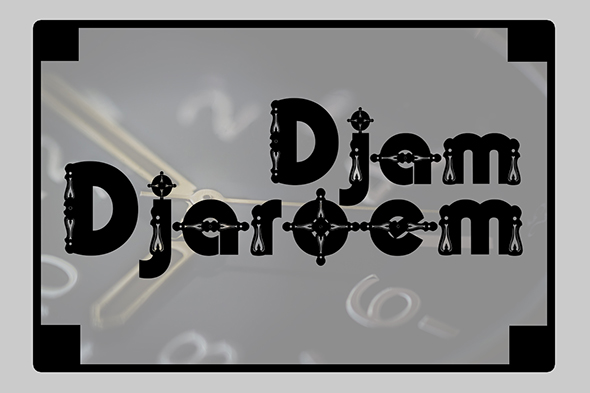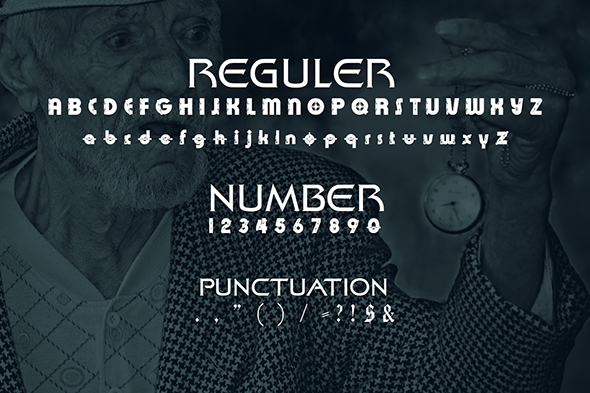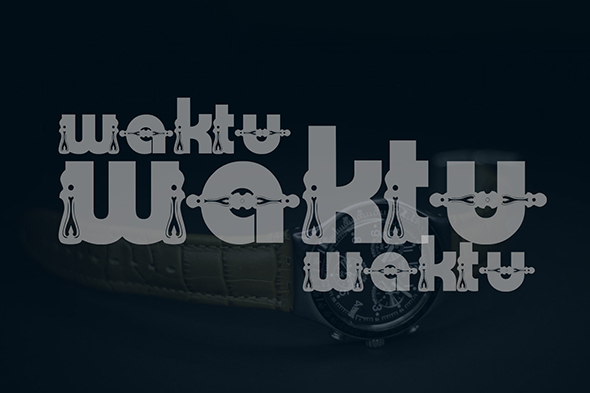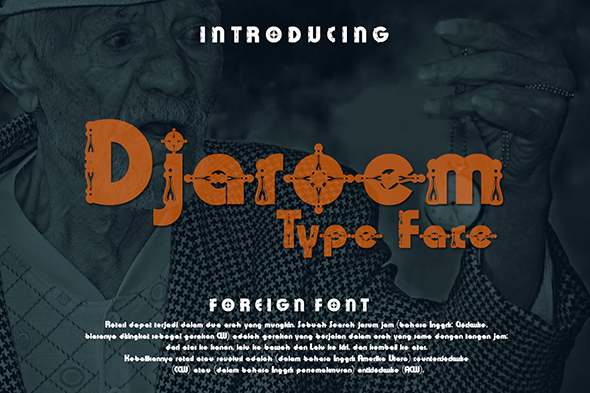
Djaroem Font: Elevate Your Designs with the Unique Style of Gblack Id
In the world of typography, fonts play a crucial role in conveying messages, expressing emotions, and creating visual identities. For designers and crafters, finding the perfect font can be a daunting task, especially when looking for something that stands out from the crowd. This is where Djaroem Font, created by Gblack Id, comes into play. In this article, we’ll dive deep into the world of Djaroem Font, exploring its features, benefits, and uses, as well as provide insights on how to make the most of this unique typeface.
What is Djaroem Font?
Djaroem Font is a distinctive typeface designed by Gblack Id, a creative force known for pushing the boundaries of typographic design. The font is characterized by its unique blend of modernity and traditional elements, making it a versatile choice for various design projects. Whether you’re working on a branding campaign, a website, or a crafting project, Djaroem Font offers a fresh and captivating aesthetic that is sure to grab attention.
Key Features of Djaroem Font
So, what makes Djaroem Font stand out from the numerous typefaces available today? Here are some of its key features:
- Unique Design: Djaroem Font boasts a one-of-a-kind design that combines sleek lines with classic elements, creating a visually appealing look.
- Versatility: This font is incredibly versatile, suitable for a wide range of projects, from digital media to print materials.
- Legibility: Despite its unique design, Djaroem Font maintains high legibility, ensuring that your message is conveyed clearly and effectively.
- Customizability: The font comes with various weights and styles, allowing you to tailor it to your specific design needs.
Benefits of Using Djaroem Font
For designers and crafters, the benefits of using Djaroem Font are numerous:
- Stand Out: With Djaroem Font, you can ensure your designs stand out in a crowded marketplace, capturing the attention of your audience.
- Enhance Brand Identity: The unique style of Djaroem Font can help you create a distinctive brand voice and visual identity.
- Flexibility: Whether you’re designing for digital platforms or print, Djaroem Font adapts seamlessly, offering flexibility across various mediums.
- Inspiration: The font’s distinctive design can serve as a source of inspiration, sparking creativity and innovation in your projects.
How to Use Djaroem Font
Integrating Djaroem Font into your design workflow is straightforward:
- Choose the Right Weight: Select the appropriate weight and style of Djaroem Font that suits your project’s requirements.
- Experiment and Combine: Don’t be afraid to experiment with Djaroem Font by combining it with other typefaces for interesting effects.
- Ensure Readability: While Djaroem Font is designed to be legible, ensure that your text remains readable, especially in smaller sizes.
To make the most of Djaroem Font, consider the following tips:
- Pair it Wisely: When combining Djaroem Font with other fonts, choose typefaces that complement its unique style without overpowering it.
- Consider Context: Think about the context in which your design will be viewed and adjust the font size and style accordingly.
- Play with Colors: Djaroem Font looks stunning in various colors. Experiment with different color schemes to enhance its visual impact.
- Stay Consistent: For branding purposes, ensure consistent use of Djaroem Font across all your materials to build a strong visual identity.
| Font Name | Djaroem Font |
| Author | Gblack Id |
Djaroem Font by Gblack Id is more than just a typeface; it’s a design statement. With its unique blend of modern and traditional elements, this font offers designers and crafters a powerful tool to elevate their projects. Whether you’re looking to create a bold brand identity, enhance your website’s typography, or add a personal touch to your crafting projects, Djaroem Font is an excellent choice. By understanding its features, benefits, and best practices for use, you can unlock the full potential of Djaroem Font and take your designs to new heights.